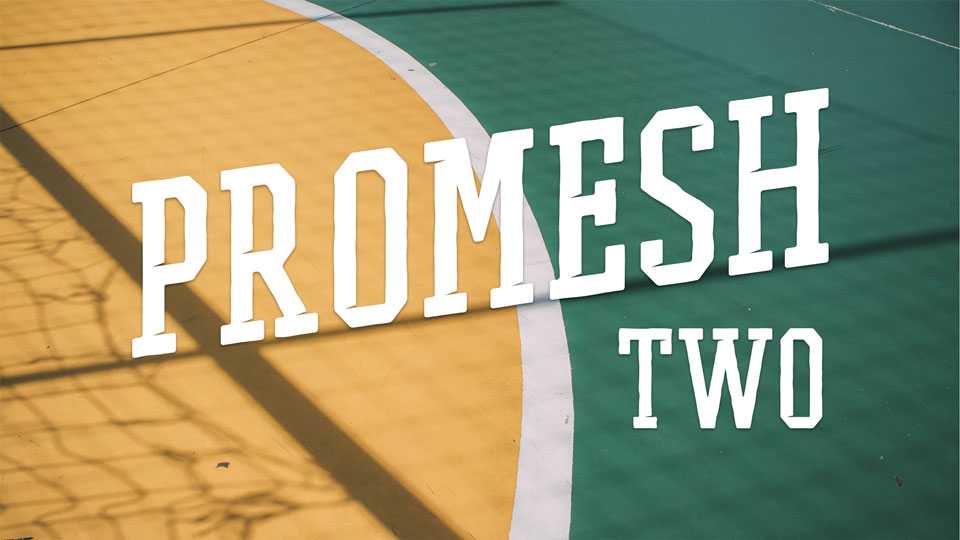
Download Promesh Two – a new styles of athletic typeface that features Distressed and Fast styles. As a previous version, it has all caps letters, numbers and symbols.